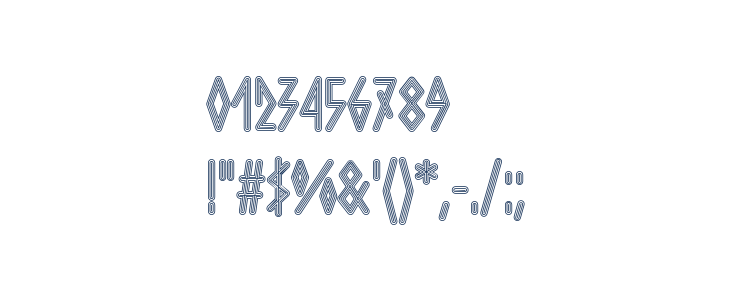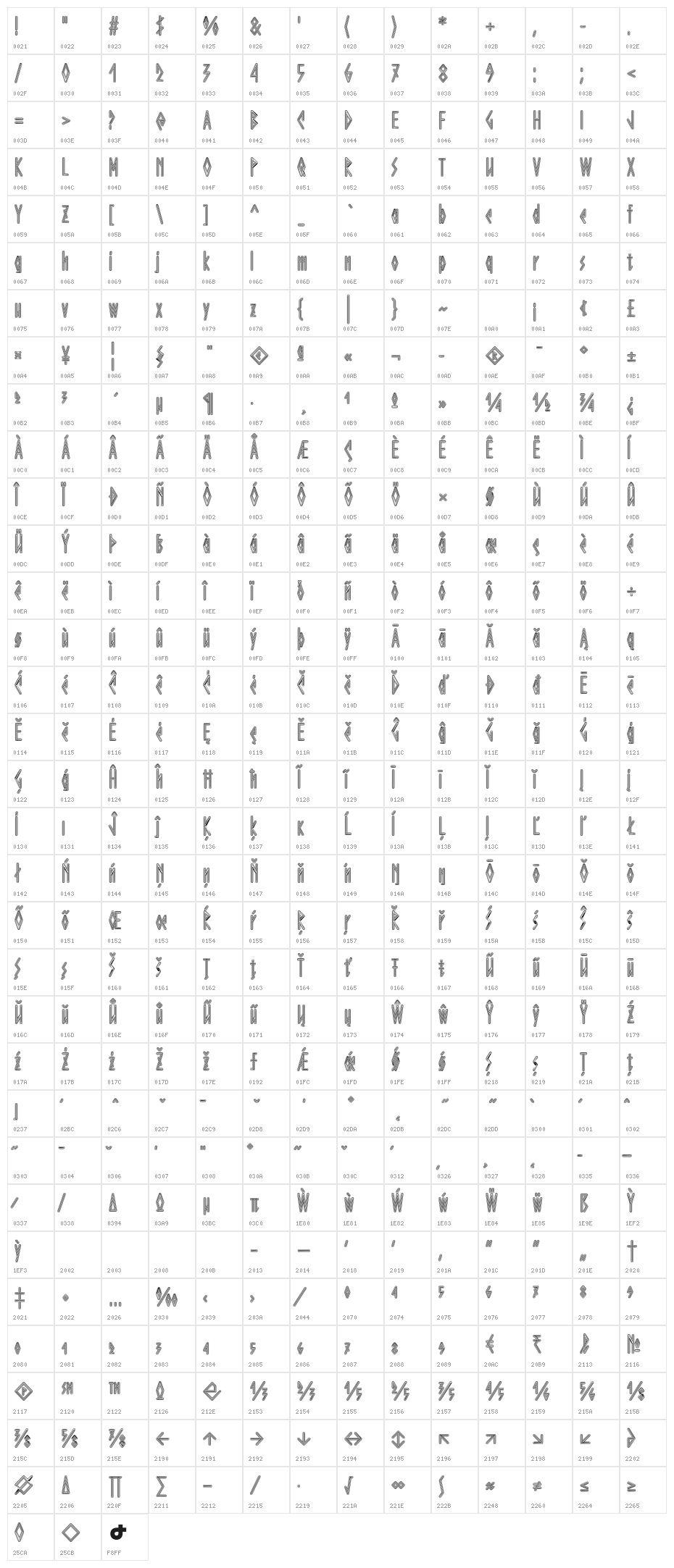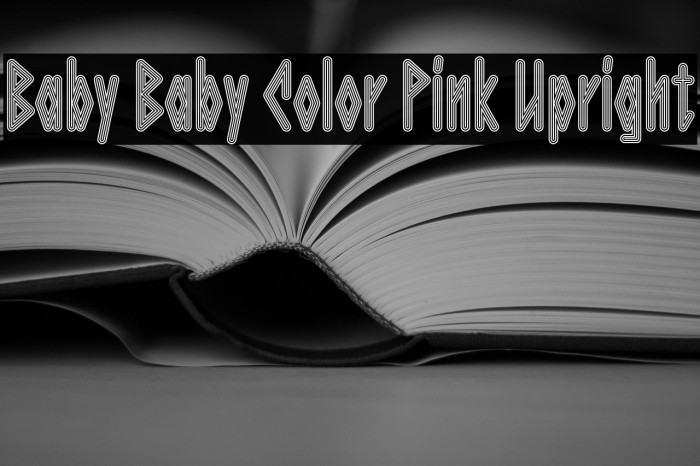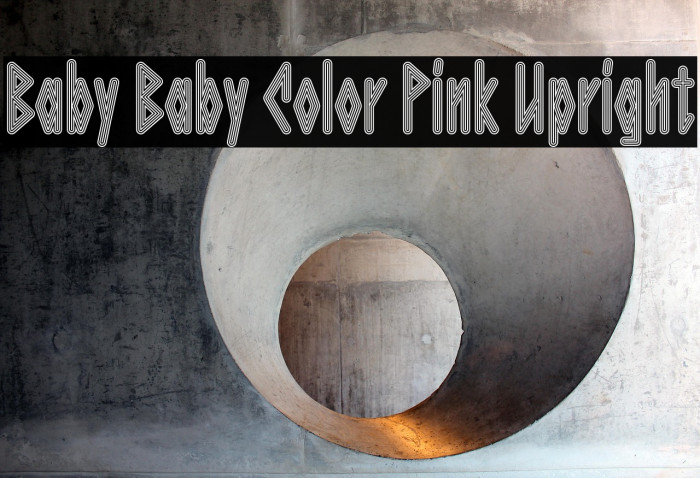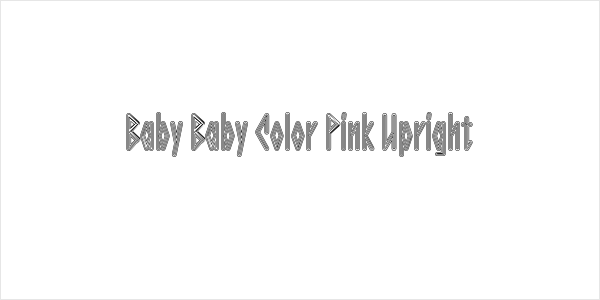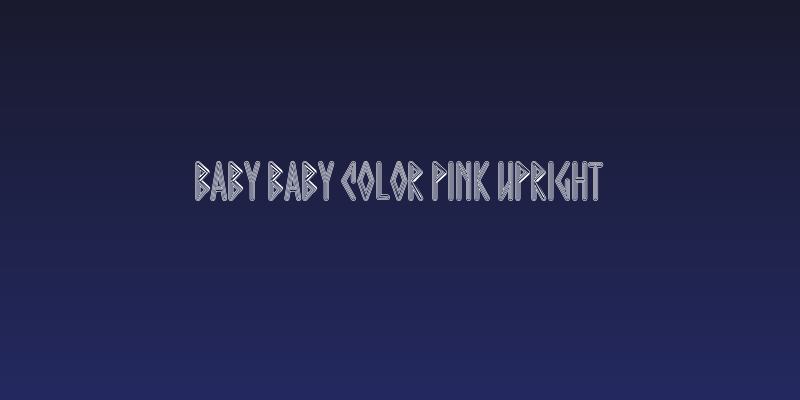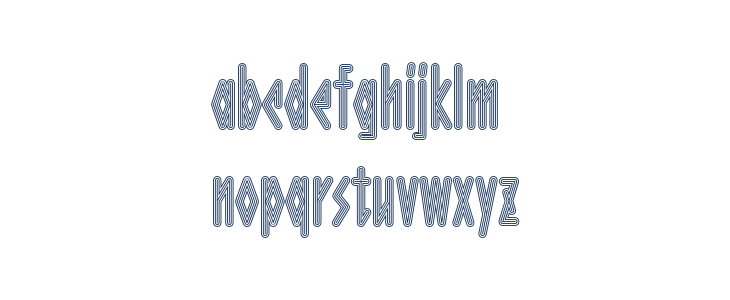
Baby Baby Color Pink Upright Font
Baby Baby Color Pink Upright Description
This font features a unique, decorative style characterized by its outlined, multi-layered appearance. Each character is composed of several parallel lines, creating a sense of depth and dimension. The uppercase and lowercase letters maintain a consistent geometric form, with sharp angles and clean lines. The numerals and special characters follow the same design principles, ensuring uniformity across the entire character set. This font's distinct style makes it stand out, offering a modern twist on traditional typography.
| Proposed Projects | Ideal for eye-catching posters, creative branding, unique logos, and modern art projects. |